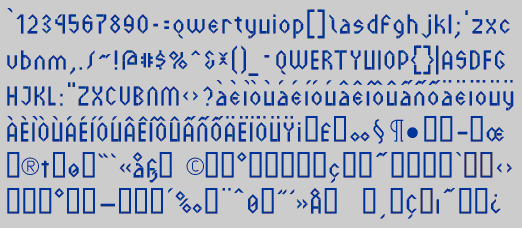
To do novelty fonts with any speed, one constructs templates, which one can then alter as the need arises. The templates which gave rise to AntsyPantsy and related fonts can be seen in a simplest form in GothicBlock. It is a typeface with no curves, and it has a gothic or medieval look to it. TwoTonedStoned puts a simple design in the blocks, and yields a font that looks like it is made of bricks with relief.